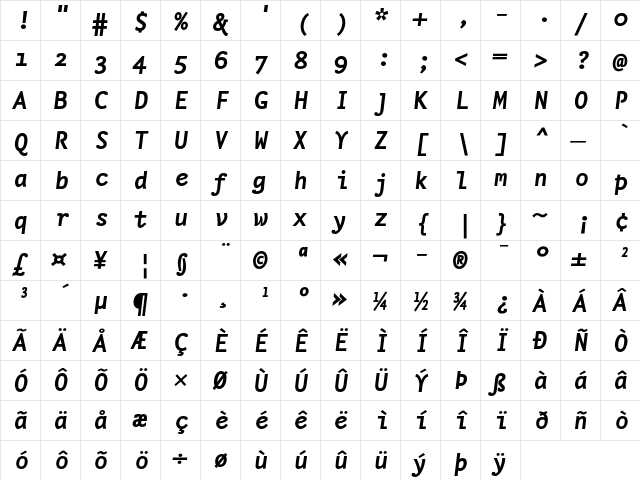
NexusTypewriter-BoldItalic Regular Font Preview
Design Context for NexusTypewriter-BoldItalic Typeface
NexusTypewriter-BoldItalic uses fixed-width spacing throughout, giving it the structured, systematic character associated with coding environments and technical documentation. The dynamic lean of this cut emphasises speed and emphasis in any layout. The heavy weight commands attention and anchors typographic hierarchies.
A natural fit for code editors, technical documentation, developer-focused branding, and terminal-inspired UI.
Pro Tip: Pair NexusTypewriter-BoldItalic with a proportional sans for UI contexts where code-style labels and regular body copy need to coexist.